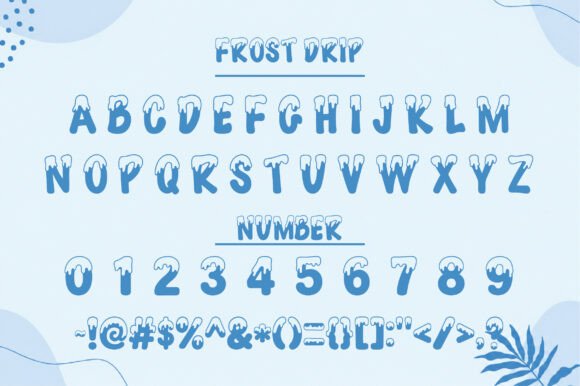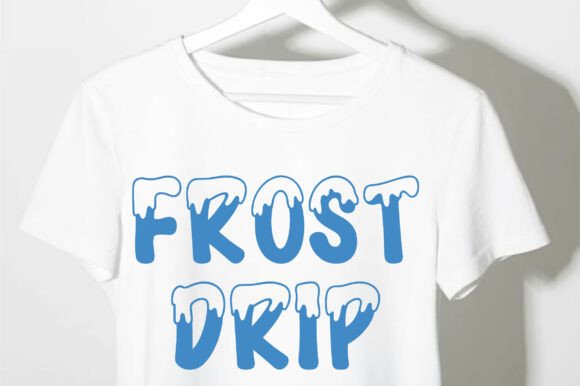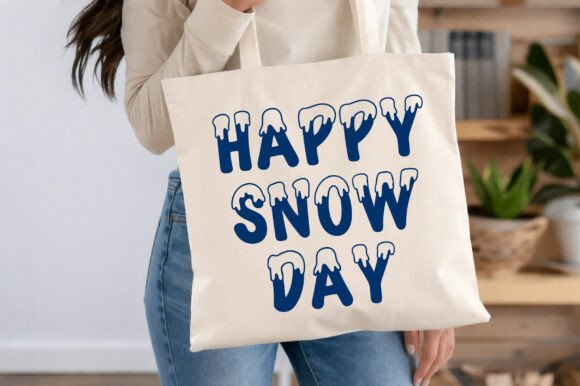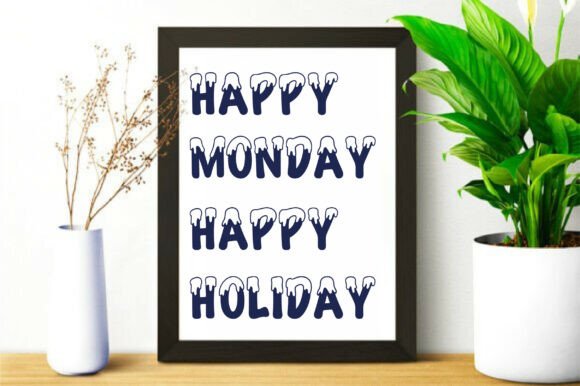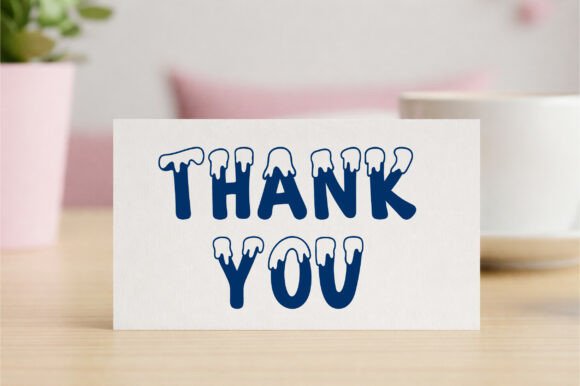
Frost Drip Font: The Coolest Way to Add a Touch of Winter Wonder to Your Designs
Are you looking for a font that can add a dash of fun and playfulness to your designs? Look no further than the Frost Drip Font! This frozen display font is perfect for designers and crafters who want to create eye-catching logos, stunning posters, unique t-shirt designs, and creative branding that stands out from the crowd. ❄️✨
The Cool and Icy Style of Frost Drip Font
Frost Drip Font is a fun and playful font that is sure to capture the attention of your audience. Its cool icy style is reminiscent of a winter wonderland, making it perfect for designs that require a touch of frosty freshness. The font’s unique and quirky design makes it ideal for creating designs that are both fun and sophisticated.
Uses of Frost Drip Font
Frost Drip Font is a versatile font that can be used in a variety of design projects, including:
- Logos: Create eye-catching logos that stand out from the crowd with Frost Drip Font. Its unique design makes it perfect for logos that require a touch of personality.
- Posters: Add a touch of winter wonder to your posters with Frost Drip Font. Its cool icy style is sure to capture the attention of your audience.
- T-shirt designs: Create unique and stylish t-shirt designs with Frost Drip Font. Its fun and playful design makes it perfect for designs that require a touch of personality.
- Branding: Use Frost Drip Font to create creative branding that stands out from the crowd. Its unique design makes it perfect for brands that want to make a statement.
Why Choose Frost Drip Font?
There are many reasons why you should choose Frost Drip Font for your design projects. Here are a few:
- Unique design: Frost Drip Font has a unique and quirky design that is sure to capture the attention of your audience.
- Versatility: Frost Drip Font is a versatile font that can be used in a variety of design projects.
- High-quality: Frost Drip Font is a high-quality font that is designed to provide the best possible results.
Tips for Using Frost Drip Font
Here are a few tips for using Frost Drip Font in your design projects:
- Use it sparingly: Frost Drip Font is a bold font that can be overwhelming if used too much. Use it sparingly to add a touch of personality to your designs.
- Pair it with other fonts: Frost Drip Font can be paired with other fonts to create a unique and interesting design.
- Experiment with colors: Frost Drip Font looks great in a variety of colors. Experiment with different colors to find the one that works best for your design.
Frost Drip Font is a fun and playful frozen display font that is perfect for designers and crafters who want to add a touch of winter wonder to their designs. Its cool icy style and unique design make it ideal for creating eye-catching logos, stunning posters, unique t-shirt designs, and creative branding. With its versatility, ease of use, and high-quality design, Frost Drip Font is a great addition to any design project. ❄️✨